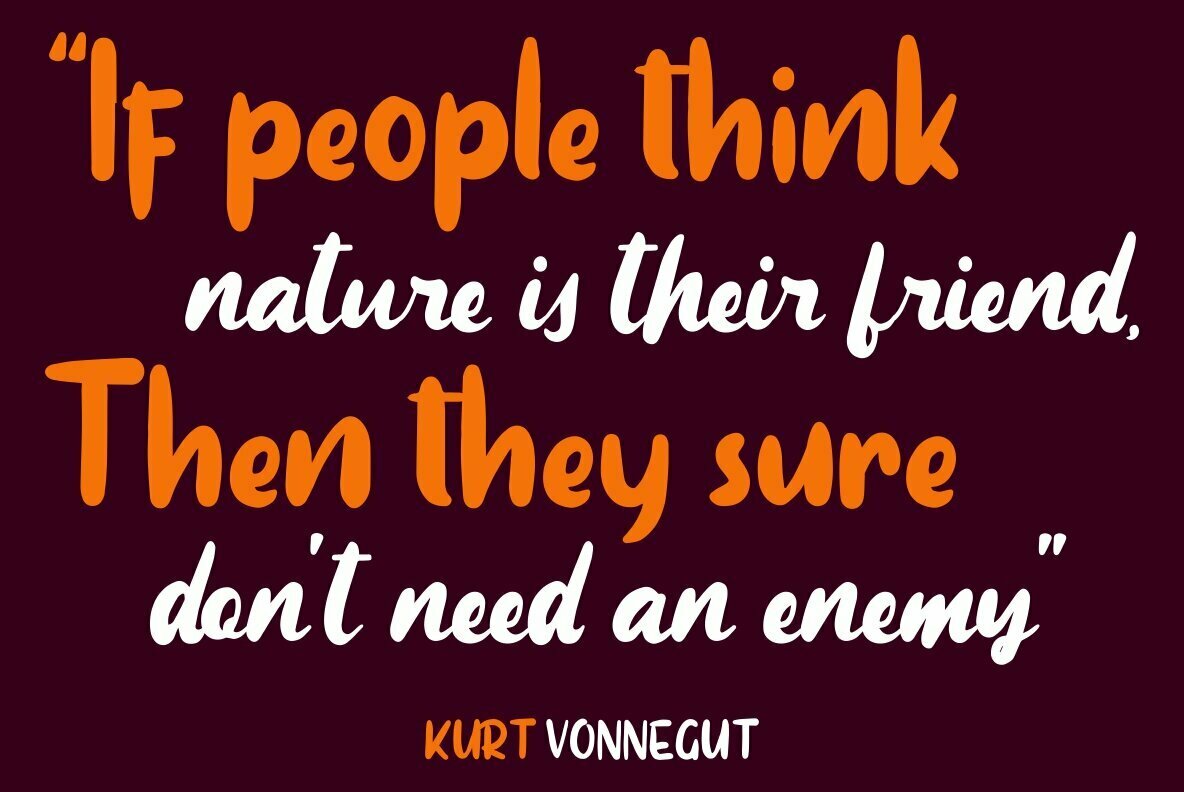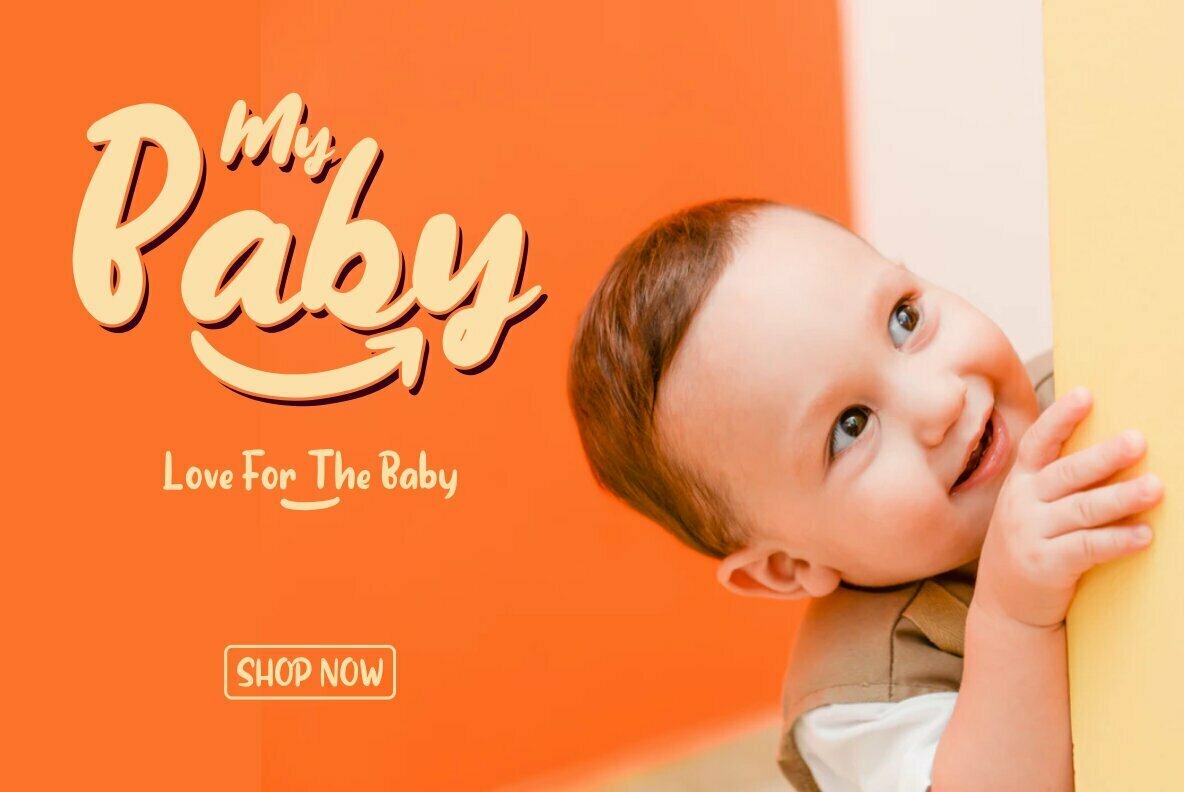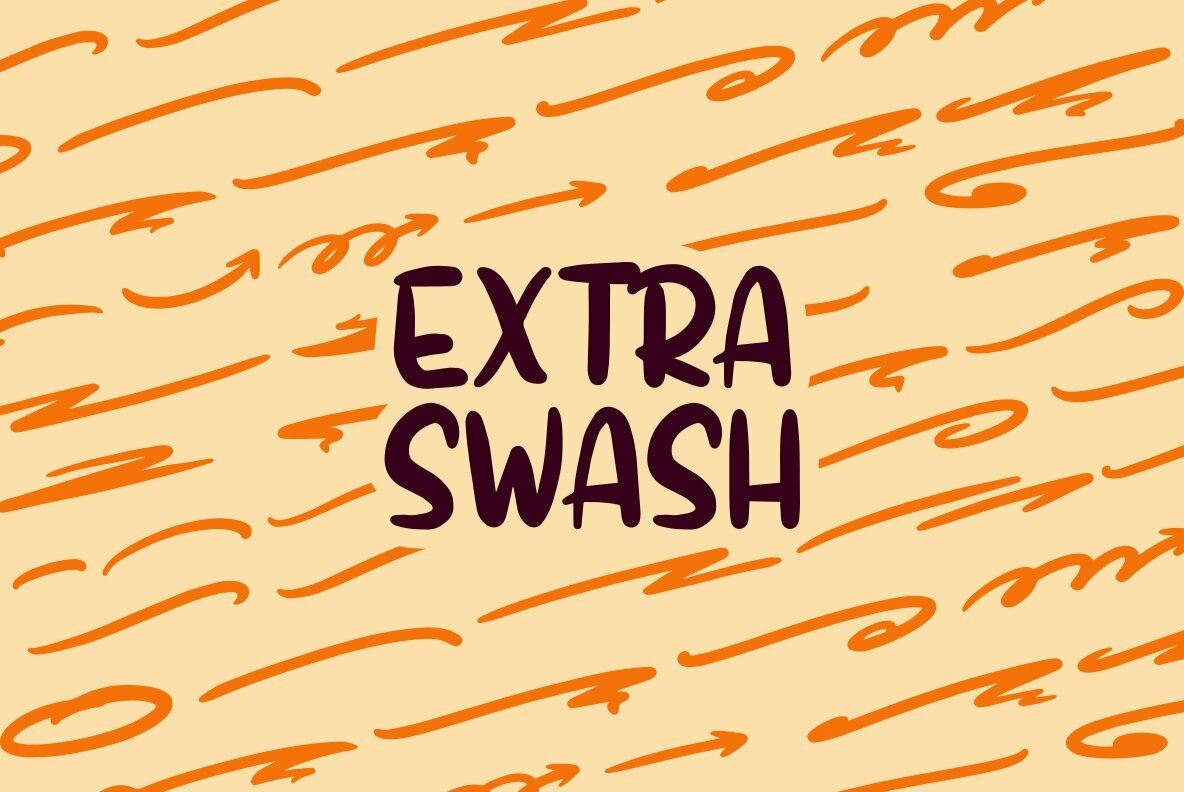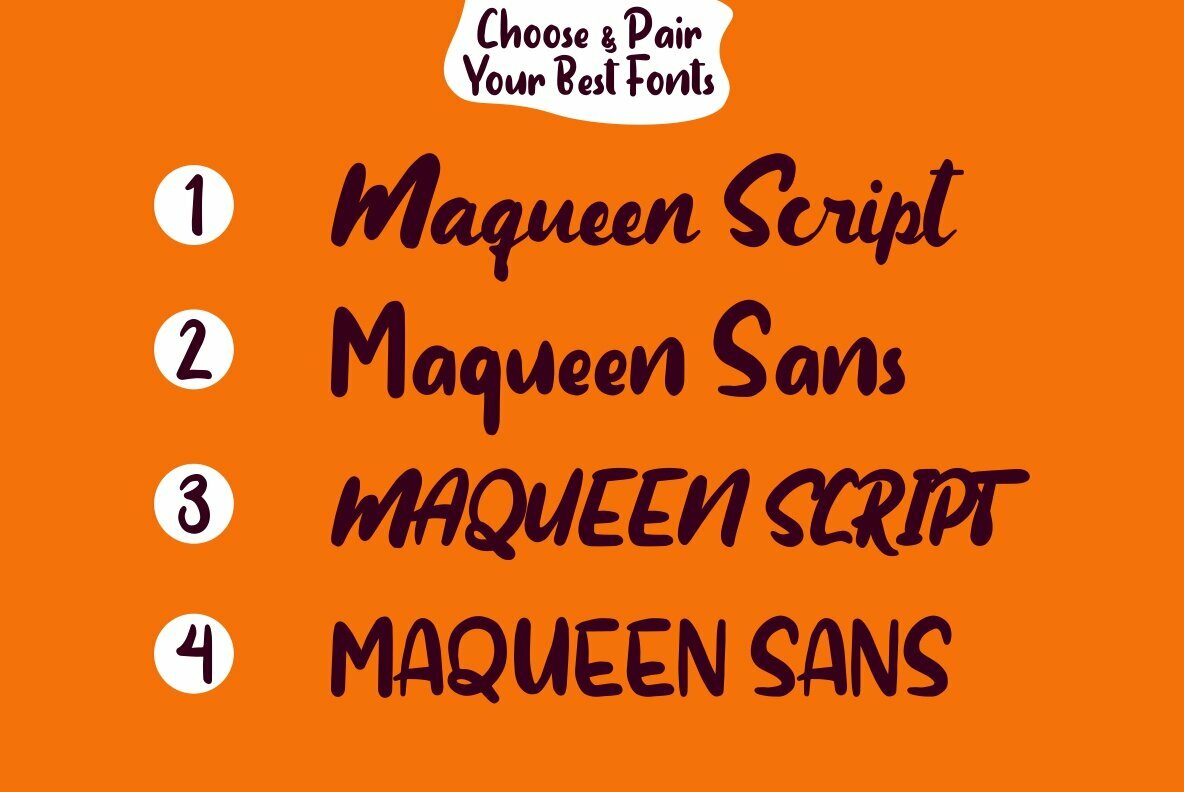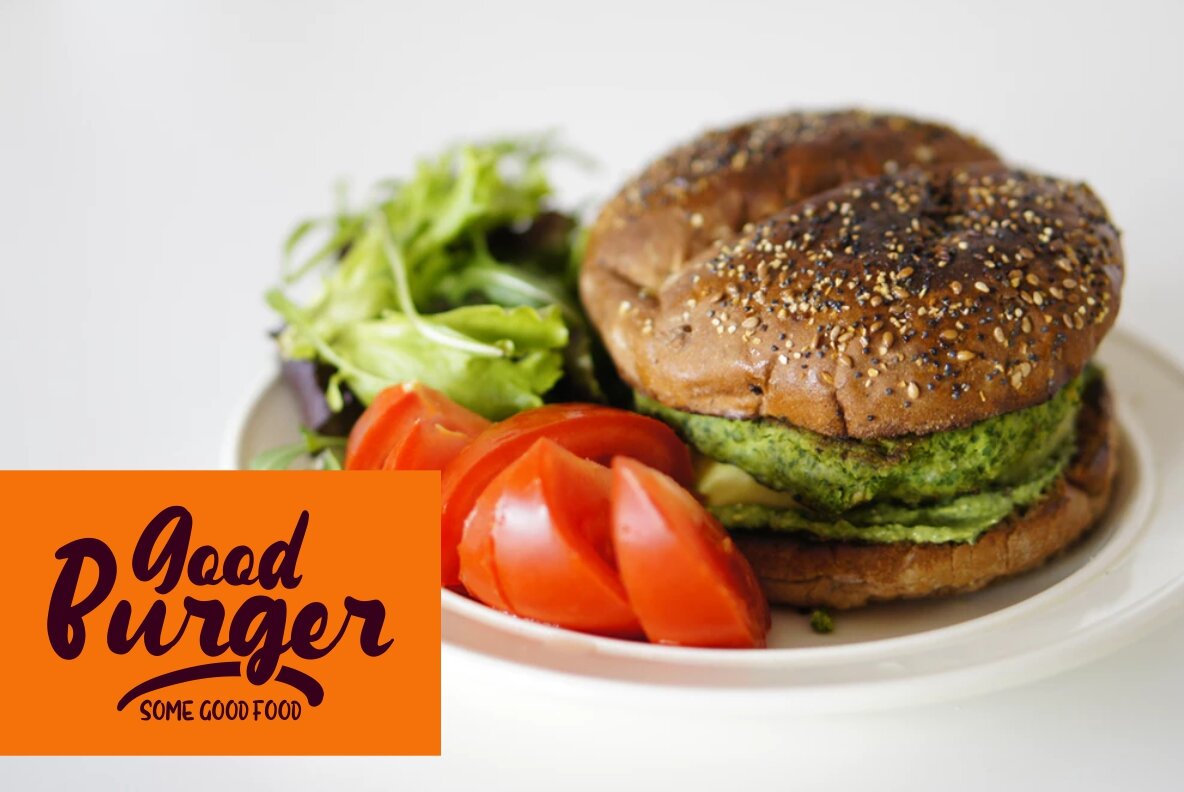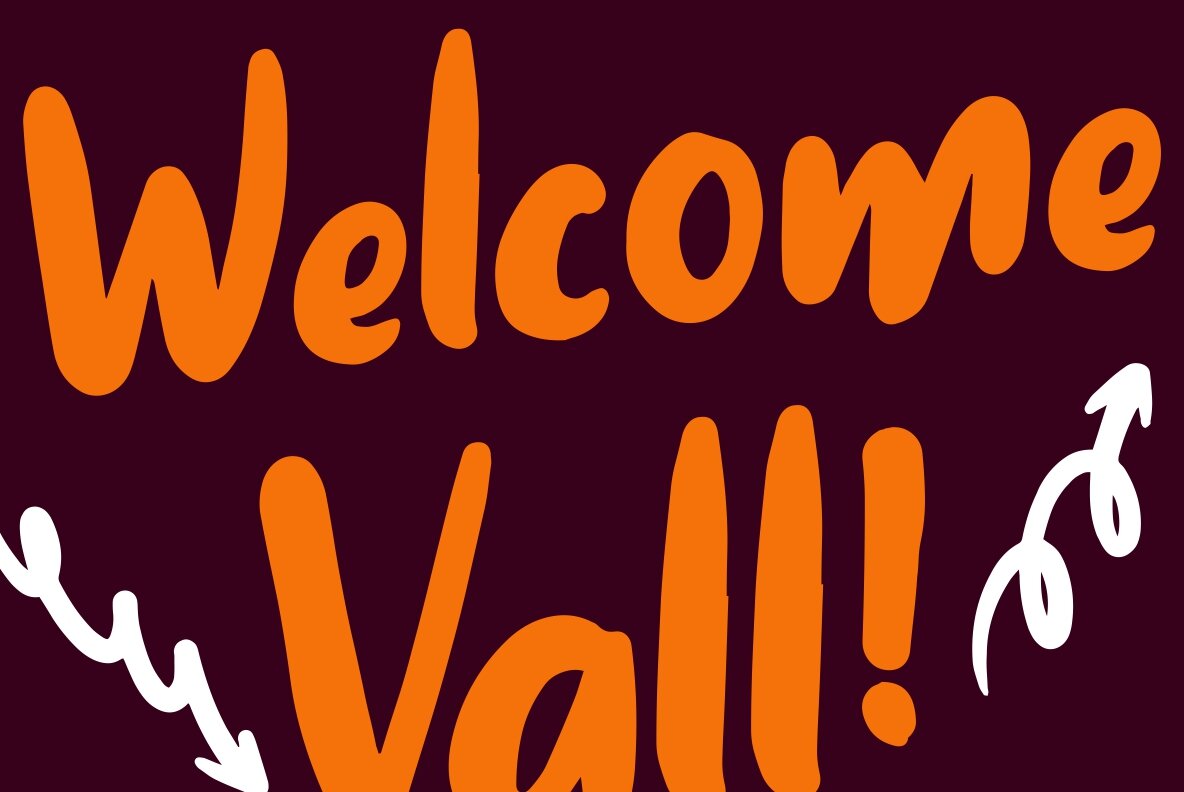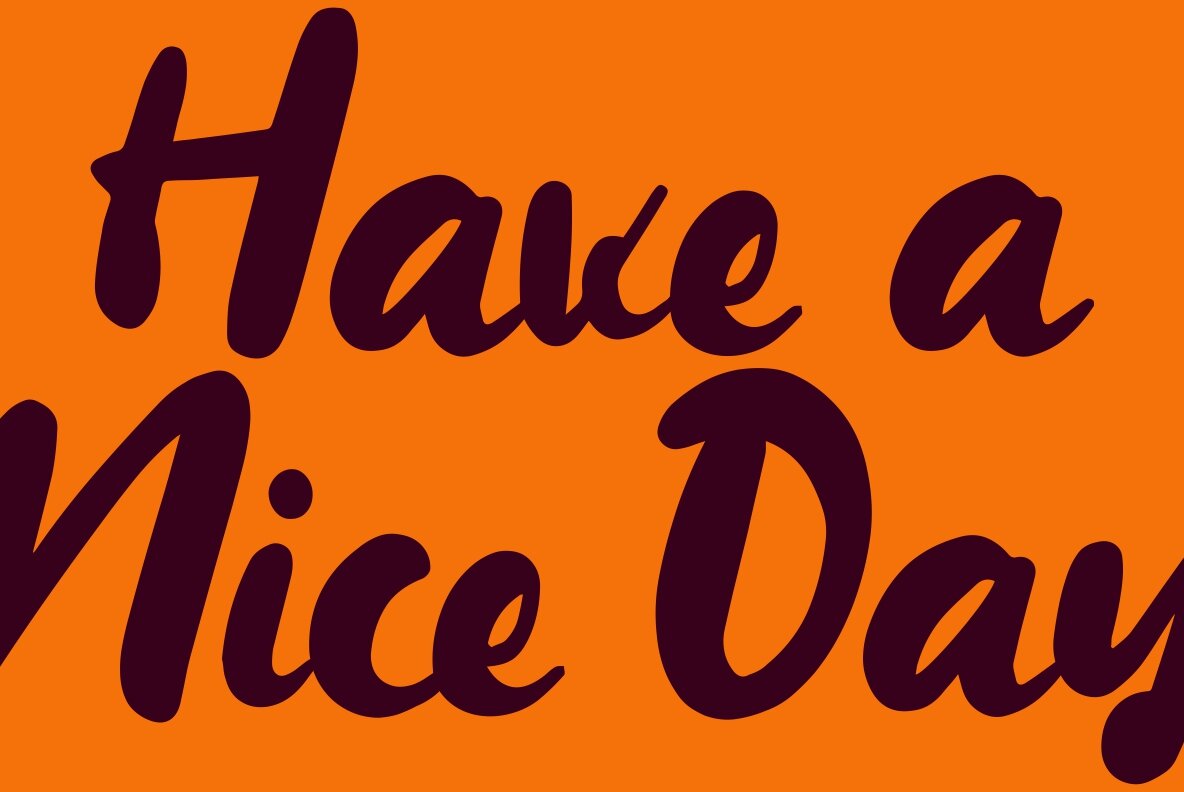
Maqueen Font
Maqueen offers a charming blend of playfulness with its friendly, round display characters, capturing the essence of fun and creativity. This duo font features two distinct styles: Display Sans and Semi Script, each designed to complement the other. You can easily interchange these styles, using one as the primary font while the others enrich your multilayered typography, ensuring a consistent aesthetic across your work. Well-suited for branding, packaging design, advertisements, posters, and editorial projects, Maqueen's versatility shines in headline styles. Its playful nature makes it particularly ideal for contexts needing a lively, engaging touch.Maqueen: Playful Duo Font for Creative Projects